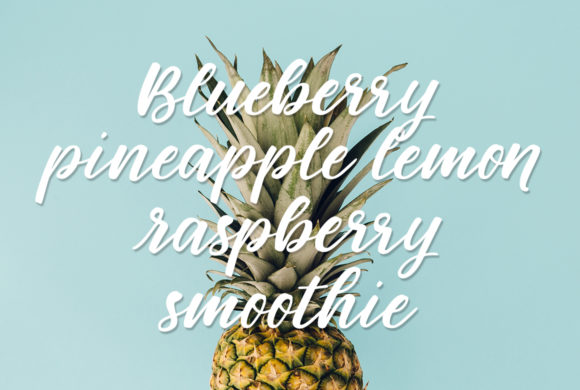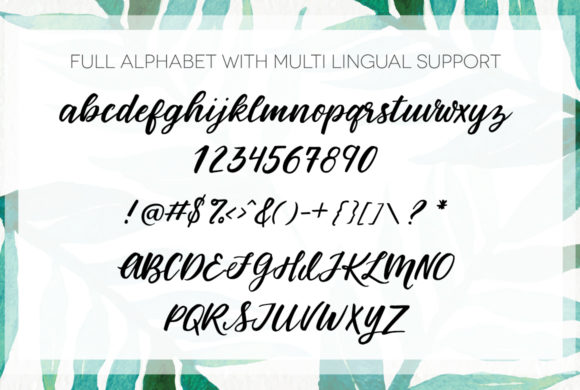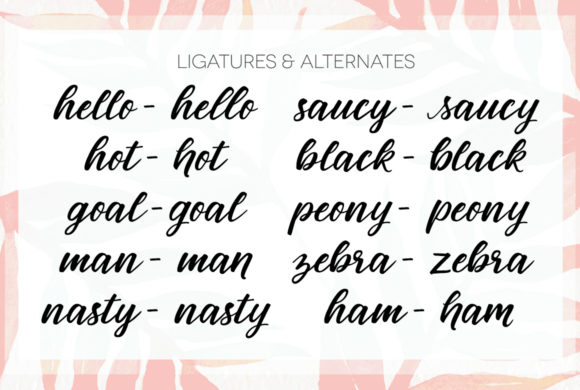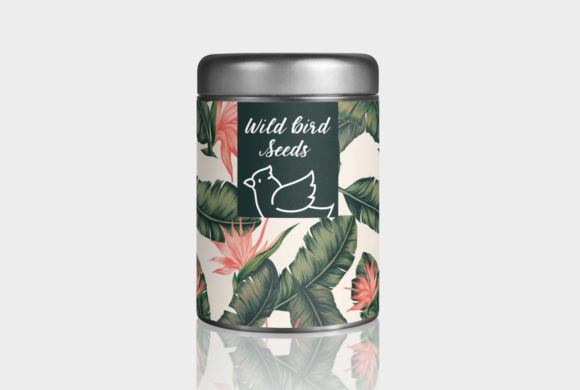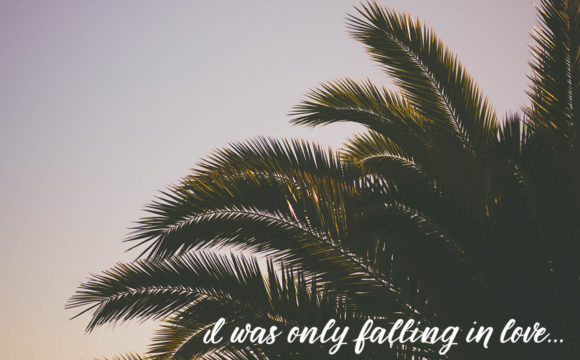
The Quest for the Perfect Font: Discovering Birds of Paradise
I’ll never forget the design project that led me to Birds of Paradise. I was working on a branding project for a crafty DIY client, and I was struggling to find the right font. I wanted something casual, fun, and playful, but also clean and professional. After hours of scrolling through font websites, I stumbled upon Birds of Paradise, and it was love at first sight! ✨
A Personal Review of Birds of Paradise
So, what makes Birds of Paradise so special? Let’s dive into the good stuff! 😊
- ✨ Casual and fun handwritten vibe, perfect for crafty DIY projects
- ✅ Clean and professional look, suitable for logos and branding
- 🌈 Quirky and playful personality, adds a touch of whimsy to any design
- 📝 Works well with both digital and print materials
While Birds of Paradise is an amazing font, it’s not perfect. Here are a few things to keep in mind:
- 🤔 Some characters may not work well at very small sizes (less than 10pt)
- ⚠️ Limited language support (no non-English characters)
The Story Behind Birds of Paradise
While the true story behind Birds of Paradise may be unknown, it’s easy to imagine that the designer was inspired by the beauty of nature and the world of art. Perhaps they wanted to create a font that would bring a touch of whimsy and playfulness to designs. 🌟
| What type of font is Birds of Paradise? | Birds of Paradise is a casual, fun handwritten font created with a brush pen. |
| Is Birds of Paradise suitable for logos and branding? | Yes! Birds of Paradise has a clean and professional look, making it perfect for logos and branding. |
| Does Birds of Paradise support non-English characters? | No, Birds of Paradise has limited language support and does not include non-English characters. |